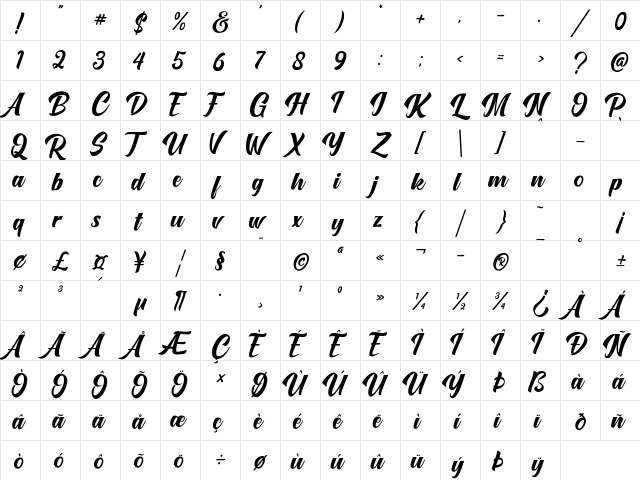
Onetime Script Regular
| Designer | Lettersiro 2018 |
Design Context for Onetime Script Typeface
Onetime Script flows with the natural rhythm of handwritten lettering, making it ideal for designs that call for warmth and personal expression.
Font Pairing: Combine Onetime Script with a simple geometric sans for maximum contrast — the tension between flowing curves and clean structure is a classic typographic pairing.
Pro Tip: Use Onetime Script for short runs of text — names, titles, or taglines. Extended body copy in script faces tires the eye quickly.